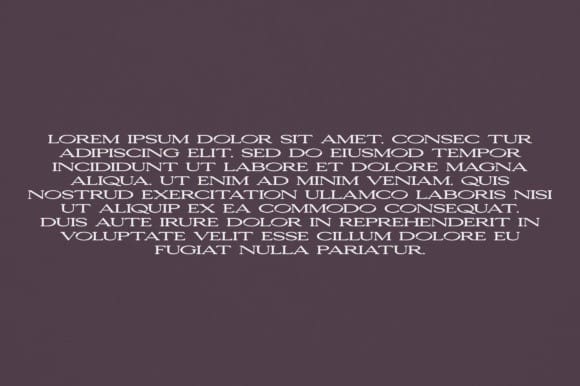
Seneca Font
Seneca Font is an elegant and versatile serif font that will make your typography truly unique! It will enchant every logo, branding, headline, or plain text!